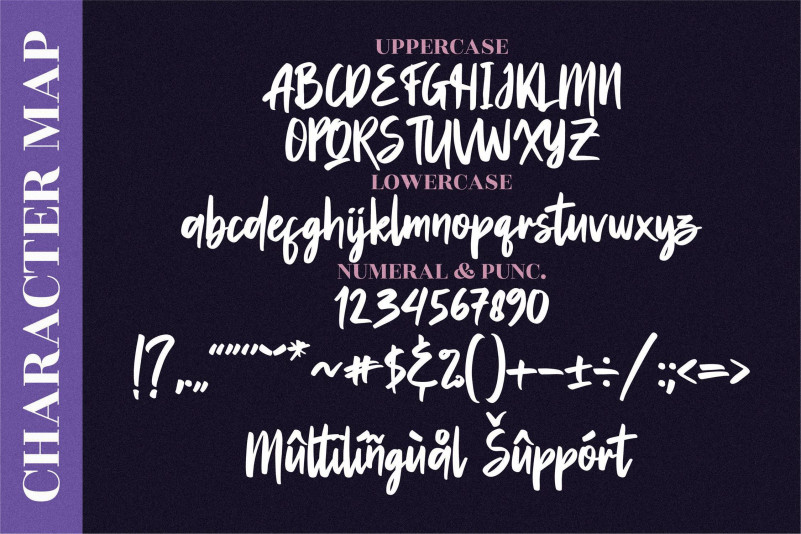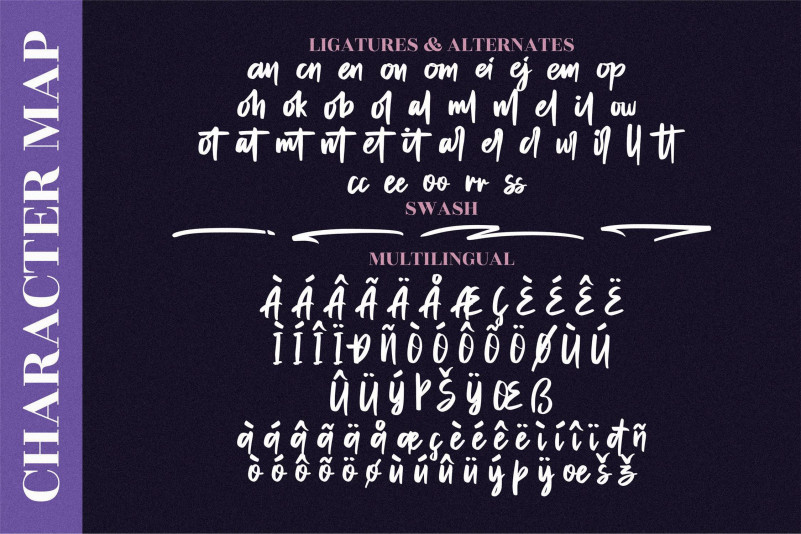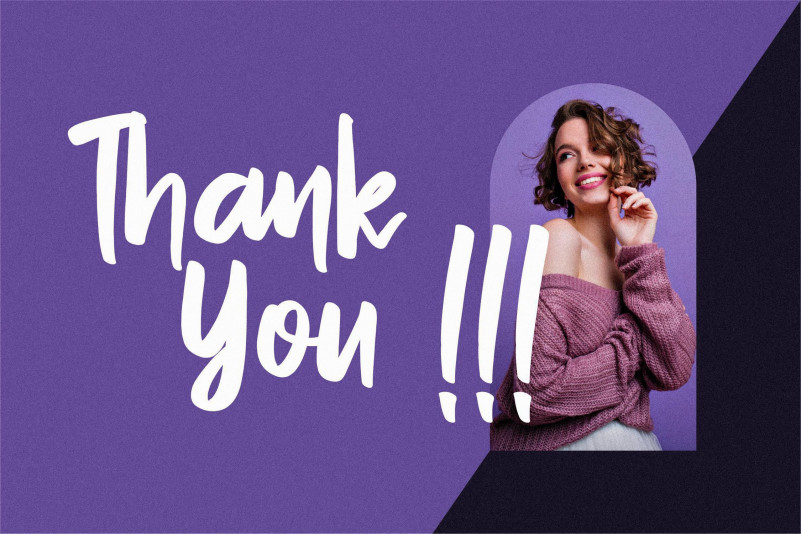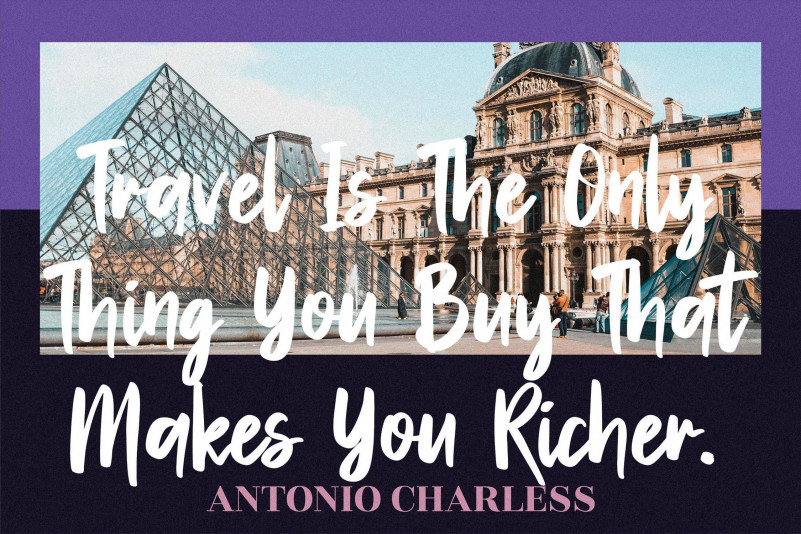
Aprilia Marelo Font
Aprilia Marelo Script Font
This is a gorgeous and bold handwritten font, crafted to give your headlines and logotype projects a stylish touch. This font reads as strong, confident, and dynamic and can add tons of nostalgic character to your designs. Aprilia Marelo is PUA encoded which means you can access all of the glyphs and swashes with ease!